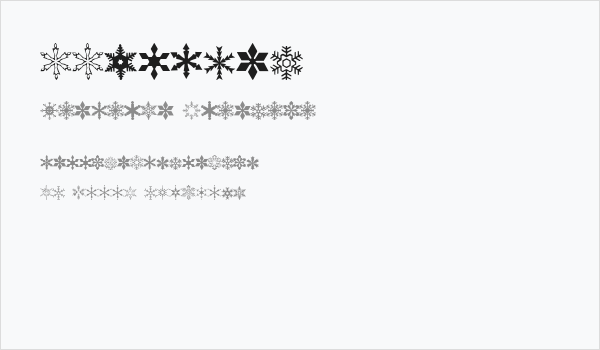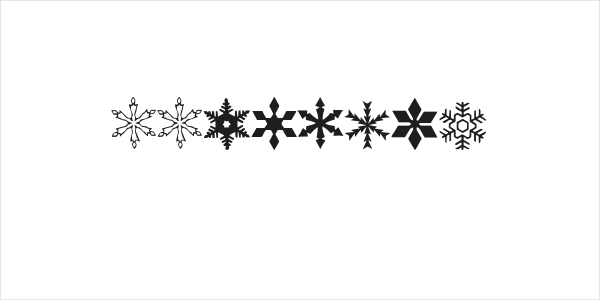
WWFlakes Font
A decorative collection of snowflake glyphs, each with unique geometric and organic patterns, presented in a variety of line weights and intricacies. The set is highly ornamental, with each symbol distinct, evoking a festive and wintry atmosphere.
| Overall Style | Decorative, Festive, Seasonal |
| Use Case | Borders, Decorative elements, Themed graphics |
| Proposed Projects | Holiday cards, winter-themed invitations, decorative borders, seasonal branding, digital scrapbooking. |